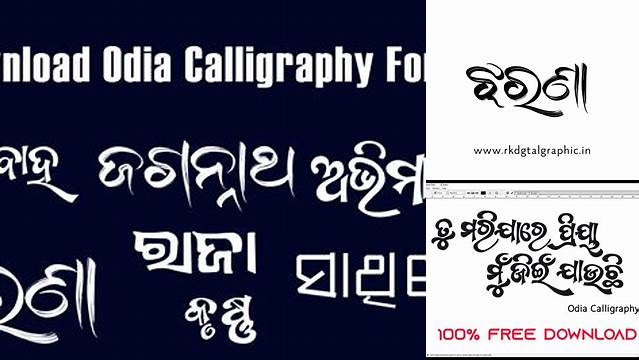
Free Odia Calligraphy Fonts: Download PDFs And Elevate Your Design
Odia calligraphy, with its elegant curves and artistic flair, has always held a special place in the hearts of art enthusiasts and language lovers alike. Finding the perfect font to bring this beautiful script to life can be a quest, but the rewards are well worth the effort. Luckily, the digital age has brought a wealth of resources, including the opportunity for an odia calligraphy font free download PDF. This opens doors for anyone to explore the beauty of Odia script in their creative projects, whether it's designing invitations, crafting digital art, or simply adding a touch of cultural richness to your work. With the right font at your fingertips, the possibilities are truly limitless. Let's dive deep into the world of odia calligraphy font free download PDF, exploring how to find these treasures and how to best utilize them for your creative endeavors.
Finding Your Perfect Odia Calligraphy Font: A Beginner's Guide
So, you're ready to embark on your Odia calligraphy journey? Fantastic! The first step, naturally, is to find the ideal font. Fortunately, the internet is a treasure trove of options, and many offer an odia calligraphy font free download PDF. But where do you start? First off, a simple search using terms like "Odia calligraphy font free download PDF" or "free Odia fonts" is a great starting point. Be sure to explore various websites, font repositories, and design platforms. Look for fonts that appeal to your aesthetic. Consider whether you're aiming for a traditional, elegant look or something more modern and stylized. Don't hesitate to download a few different fonts to experiment with. Test them out in your preferred design software or word processor to see how they render and what kind of feel they give your text. Remember, it's all about finding the font that best suits your project and your personal style. Keep an eye out for the licensing terms; while many fonts are available for free download, it's crucial to understand the conditions for use, especially if you plan to use the font commercially. Read carefully to avoid any potential legal issues down the line. Ultimately, the search for the perfect Odia calligraphy font is a journey of discovery, so enjoy the process and embrace the artistic exploration!
Unveiling the Art of Odia Calligraphy: Techniques and Inspiration
Once you've got your font, it's time to get creative! Odia calligraphy is a beautiful art form that involves more than just typing; it's about shaping each letter with care and intention. Begin by experimenting with different styles, from traditional to modern. Consider the thickness of the strokes, the spacing between the letters, and the overall flow of the words. Practice writing individual letters and words. This helps you understand the nuances of the font and develop your own unique style. Experiment with various sizes, colors, and backgrounds to see how your calligraphy looks. One valuable technique is to vary the pressure of your "pen" (whether it's a mouse, stylus, or other input device). By applying more pressure to certain parts of the letters, you can create a sense of depth and visual interest. Inspiration can come from many places: traditional Odia art, modern graphic design, or even everyday objects. Take a look at how calligraphers in the past used the script, and see if any of the art style speaks to you. Consider incorporating ornaments, flourishes, and other decorative elements to enhance your work. To help you visualize how these techniques would work, picture the elegant flow of Odia script in the context of a wedding invitation. The delicate curves and graceful lines can add a touch of elegance and sophistication. Or perhaps you're designing a poster for a cultural event. The rich heritage of the script can be beautifully showcased with a well-chosen font and some creative layout. The possibilities are truly endless. Remember, the goal is not just to type words but to create visually appealing art. With patience and practice, you can master the art of Odia calligraphy and make a unique impact on your audience.
Mastering the Digital Brush: Tips for Digital Calligraphy
Digital calligraphy offers a fascinating way to explore the beauty of Odia script. It also provides a lot of advantages, from easy editing to the ability to experiment with colors and effects. When it comes to digital calligraphy, you'll need the right tools: a tablet and stylus will give you the most control, allowing you to mimic the feel of writing with a real pen. Several software options are available. Some popular choices are Adobe Photoshop, Illustrator, and Procreate (for iPad). Each software has its own set of features and tools. When starting, experiment with these tools. The main goal is to get familiar with them, and also experiment with different brushes. The most crucial thing is to configure your stylus for pressure sensitivity. This feature allows you to create strokes of varying thickness, mimicking the natural flow of calligraphy. Once you've set up your tools, practice the basics: create smooth, flowing lines, and try writing individual letters and words. Experiment with different angles and techniques to discover what works best for you. You can also adjust the opacity and flow settings of your brush to create unique effects. Digital calligraphy also enables you to easily correct your mistakes, try different colors, and experiment with effects. Once you've mastered the basics, digital calligraphy opens up many creative possibilities. You can design invitations, posters, social media graphics, and much more.
Beyond the Basics: Advanced Techniques and Creative Projects
Once you've mastered the basics, it's time to take your Odia calligraphy to the next level. There are many advanced techniques to explore and creative projects to try. First, consider experimenting with different styles of calligraphy. There are many styles of Odia calligraphy, each with its own unique characteristics. Researching the different styles will help you understand the nuances of the script and find inspiration for your own work. Try combining multiple styles in one project, or create your own custom style by combining elements from different styles. Consider experimenting with different mediums: you can use traditional pens and inks, as well as various digital tools. When working in digital, you can add effects, such as drop shadows, glows, and textures to your calligraphy. These effects can add depth, dimension, and visual interest to your work. Then, consider the projects you can work on. You can use your Odia calligraphy skills to create custom invitations, posters, logos, social media graphics, and much more. A great way to enhance your work is to start experimenting with color palettes. You can use a single color to make your text stand out, or create a more complex color scheme. If you're designing for print, consider using CMYK color mode to get the best results. If you're designing for digital, you can use RGB color mode.
Creative Project Ideas Using Odia Calligraphy Fonts
Ready to put your skills to the test? Here are some creative project ideas to get your imagination flowing! One exciting project is designing custom invitations for weddings, birthdays, or other special occasions. Odia calligraphy adds an element of elegance and cultural significance to these invites. Another idea is creating unique artwork for your home or as gifts. You can frame your calligraphy, use it to decorate your notebooks, or create personalized wall art. You can also design logos and branding materials for businesses or organizations, especially those connected with Odia culture. Odia calligraphy is a great way to add a touch of authenticity to your brand. If you're active on social media, you can create custom graphics and quotes. It's a great way to express yourself and to show off your calligraphy skills to a wider audience. Consider designing and selling your own calligraphy-based products. With your odia calligraphy font free download PDF and your creativity, the possibilities are endless! You can sell prints, cards, and other products online or at local markets. If you're passionate about sharing your skills, you can create online tutorials or workshops. You can help others learn the art of Odia calligraphy. Whatever you choose, remember to enjoy the process and let your creativity soar!
Calligraphy in the Digital Age: The Next Generation
Calligraphy in the digital age is an exciting journey, opening doors to innovative tools and approaches. Here's a look at what's happening right now, and what the future holds: The most obvious trend is the rise of digital calligraphy. Digital tools are giving calligraphers more control over their art. The digital tools and software will become even more advanced. Calligraphy is also going to become more accessible. Digital tools are making it easier for anyone to get started. There will be more experimentation. Calligraphers will be combining different styles and techniques. The next generation will also push the boundaries. There is so much creativity in the younger generation. By embracing technology, collaboration, and innovation, we're heading into the next exciting era of calligraphy. The possibilities are limitless.